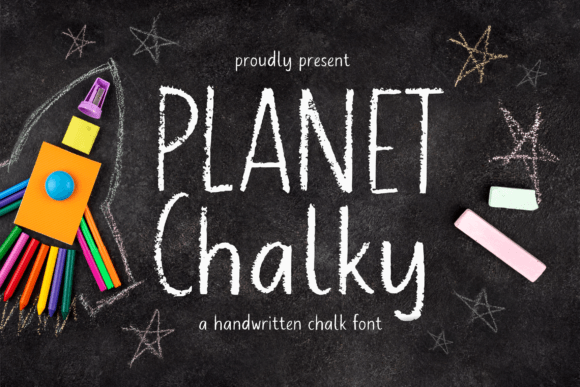
Journey into the realm of Planet Chalky, a handwritten chalk display font that captivates the senses and transforms your designs into captivating masterpieces. Created by the visionary allouse.studio, this remarkable font family is a symphony of creativity, perfectly suited for podcast art that demands attention.
Unleash the boundless potential of Planet Chalky and let your imagination soar. Whether you're crafting product packaging that commands attention, embarking on a branding project that seeks to leave a lasting impression, or designing captivating social media posts that ignite engagement, this font is your steadfast companion.
With its innate charm and playful spirit, Planet Chalky breathes life into wedding invitations and adds a touch of whimsy to personal projects. Its versatility extends far beyond the digital realm, as it lends itself effortlessly to physical mediums, becoming a stunning addition to magazines and other printed materials.
Planet Chalky possesses an innate ability to elevate your words, transforming them into visual melodies that dance across the screen or leap off the page. Its organic, hand-drawn aesthetic evokes a sense of authenticity and warmth, drawing your audience into your creative vision.
Immerse yourself in the world of Planet Chalky and unlock the gateway to design excellence. Let your creativity flourish as you craft designs that resonate, engage, and inspire. Embrace the power of this remarkable font and watch as your projects blossom into captivating creations that leave an enduring legacy.